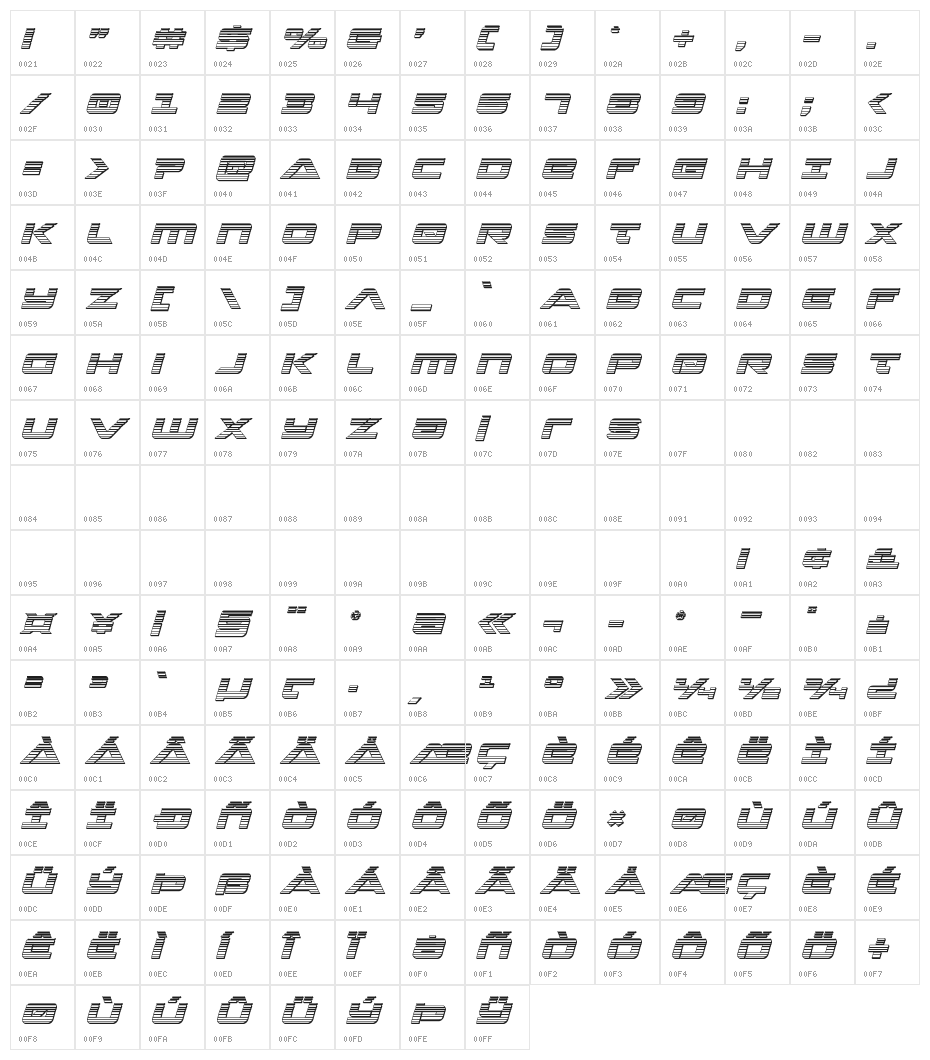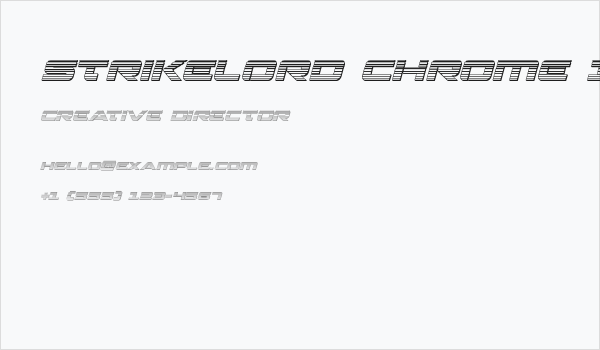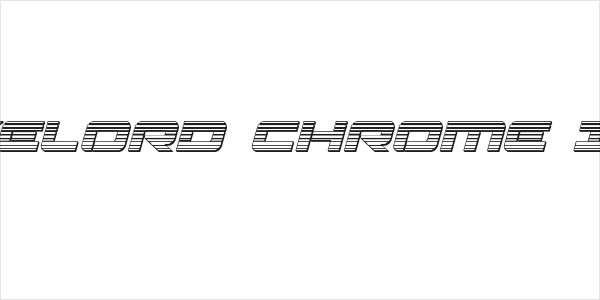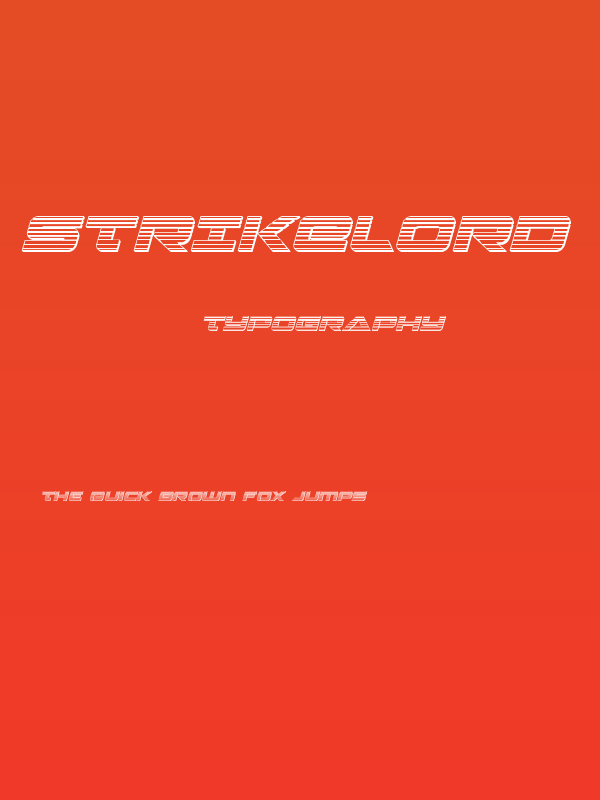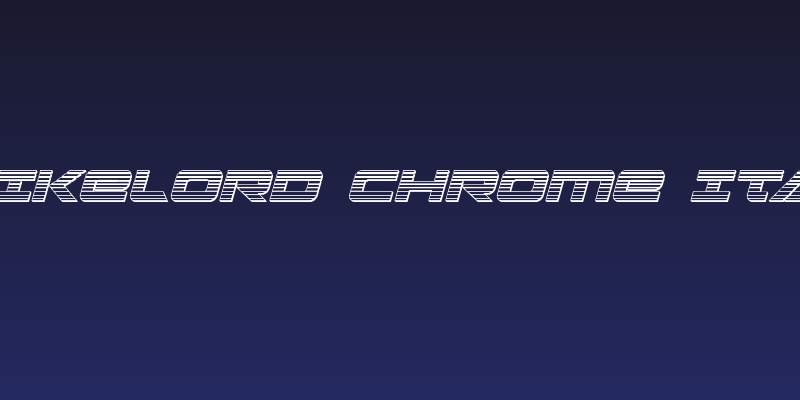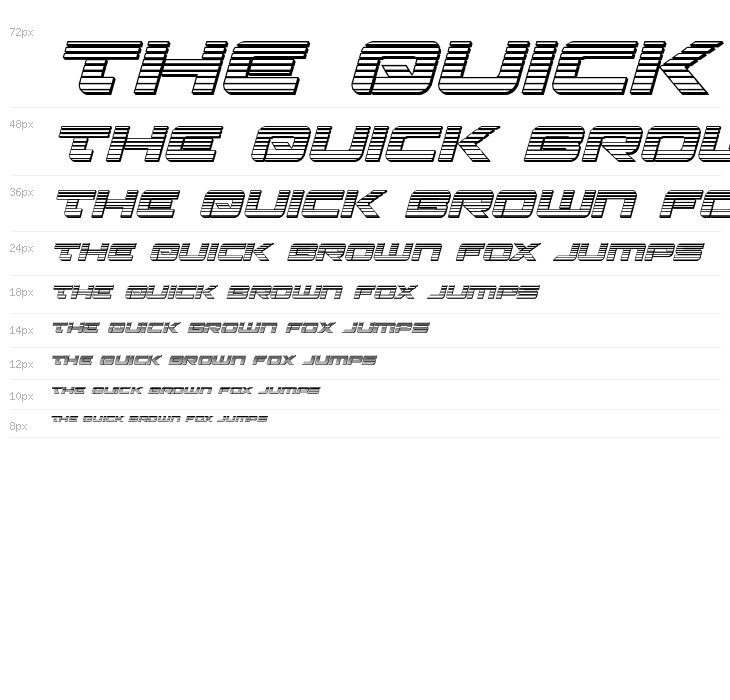
Strikelord Chrome Italic Font
Strikelord Chrome Italic Description
This font features a dynamic and futuristic design, characterized by its multi-line, striped pattern that gives each character a sense of movement and depth. The italicized slant adds to its energetic and forward-thinking appearance, making it stand out in any design. The uppercase and lowercase letters maintain a consistent style, with sharp angles and clean lines that contribute to its modern aesthetic. The numerals and special characters are equally bold and distinctive, ensuring a cohesive look across all text elements. This font's unique style is perfect for projects that require a bold statement or a high-tech feel.